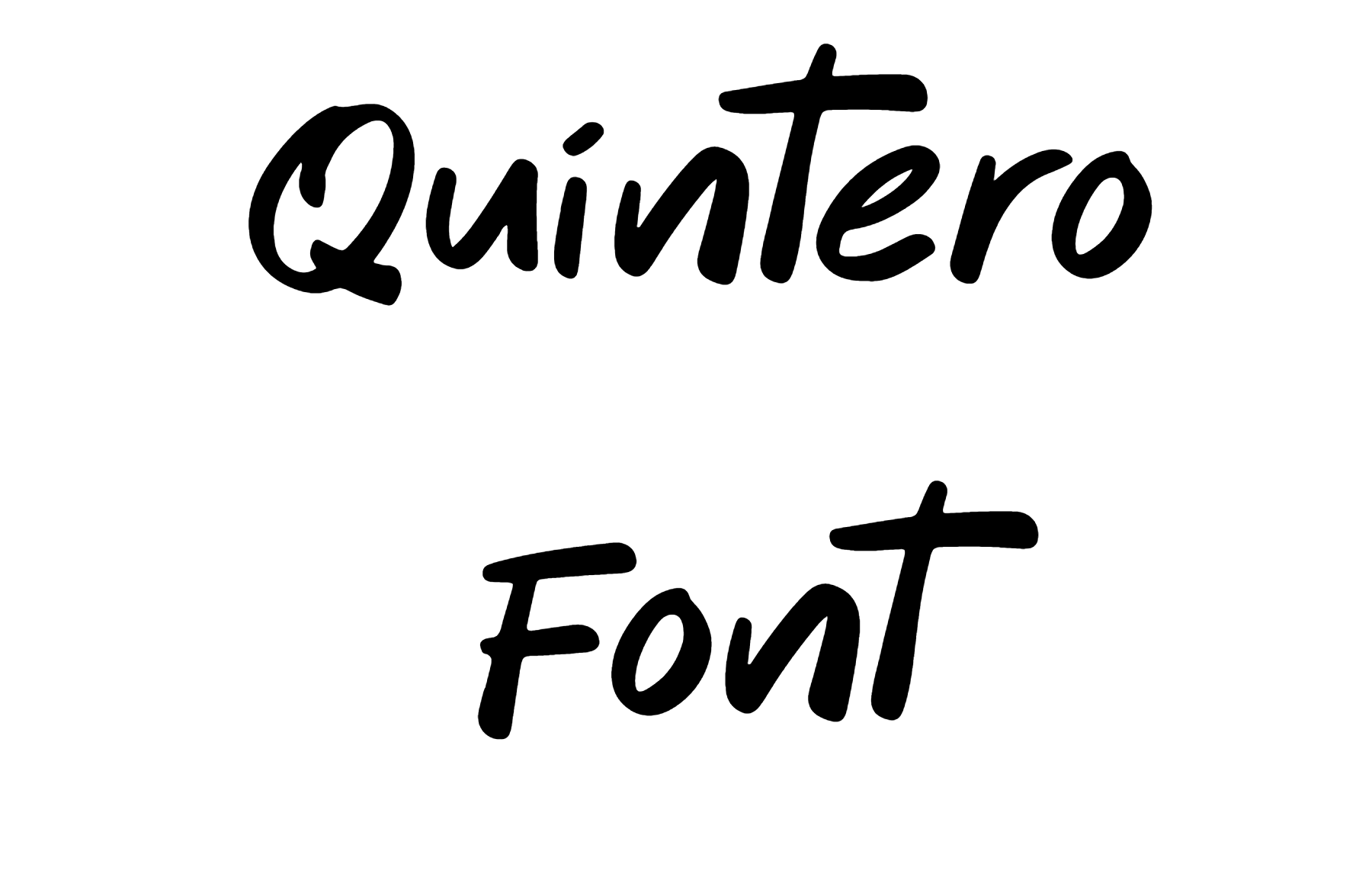
Quintero
Quintero is a script font designed by Dede Nugraha and published by Denustudios (2022). The letters have the smooth movement of real pen lettering, which is why even a single name looks special in it. It's a free download, and you can try it with your own text in the preview above first.
- OpenType features: Ligatures and 2 stylistic sets
- Extra characters: 34 copy-and-paste alternates (Private Use Area)
You get every letter from A to Z in both cases and all the numbers from 0 to 9, which means Quintero can handle full sentences, dates and prices. Common punctuation such as &, !, ? and @ is included as well. It also has the accented letters you need for Spanish, French, German, Portuguese and Italian.
Quintero is a natural fit for wedding invitations, logos and signature-style headings. Script fonts read best in short bursts, so keep it to names, titles and one-line quotes. Skip all caps: script capitals are drawn to start a word, not to fill one.
Yes. Quintero includes the accented letters needed for Spanish, French, German, Portuguese and Italian, so it works for more than just English.